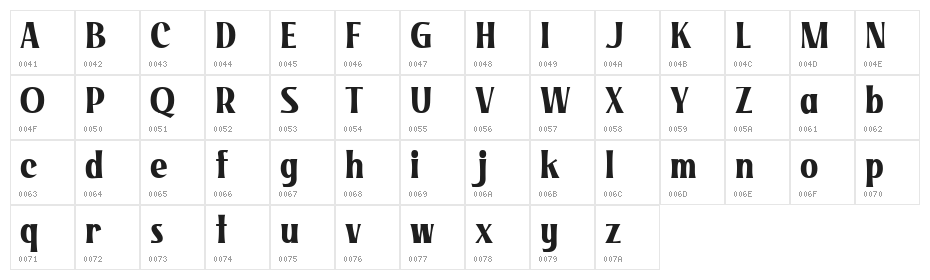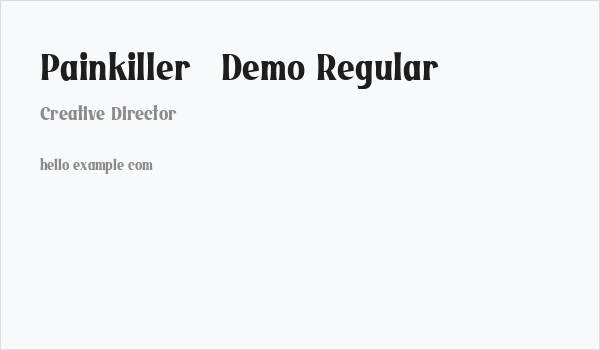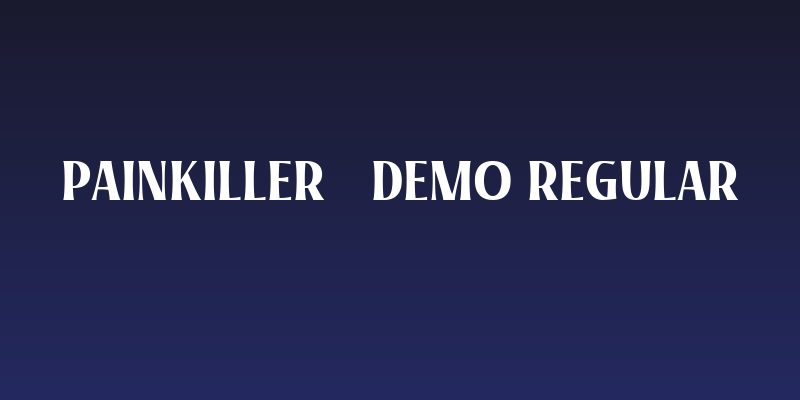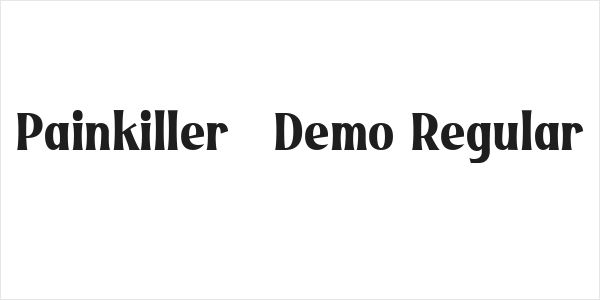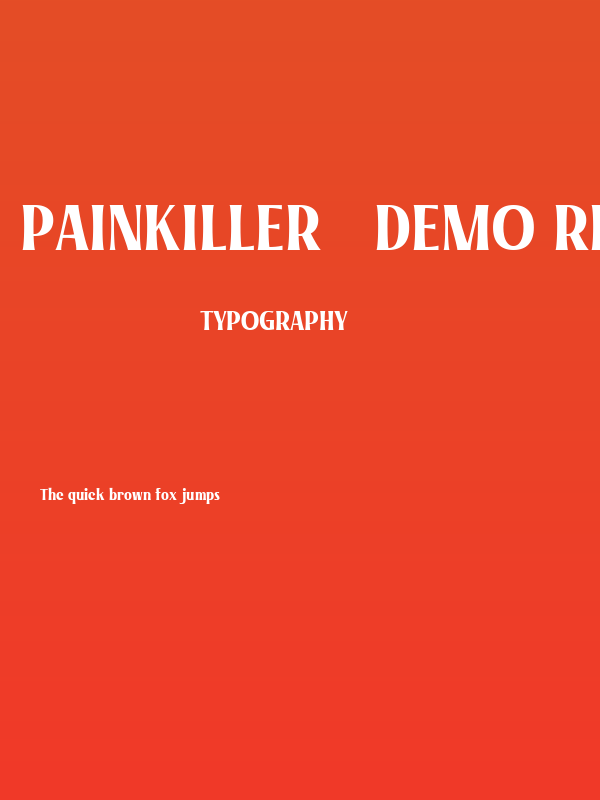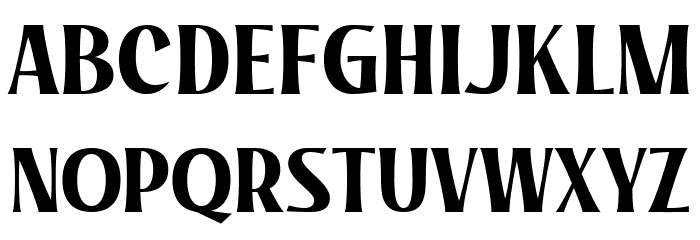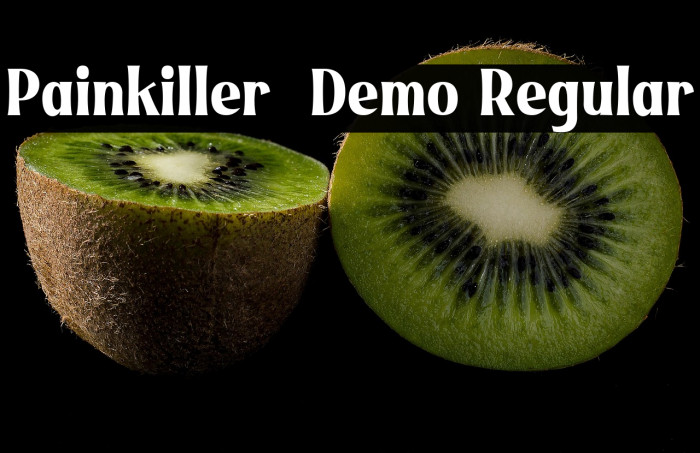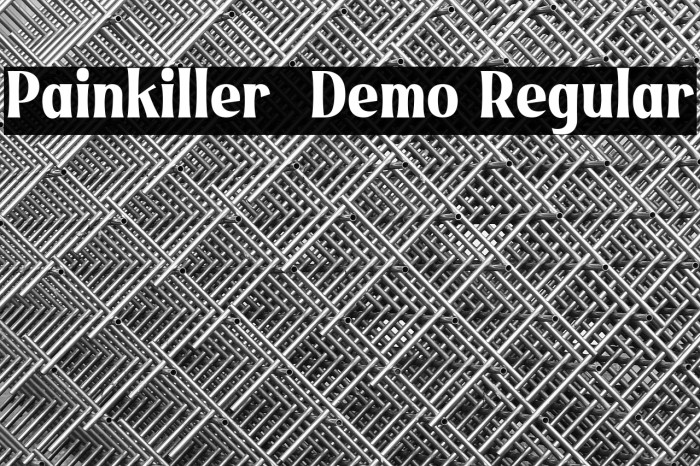
Painkiller - Demo Regular Font
Painkiller - Demo Regular Description
This font features a bold and dynamic style with a slightly condensed appearance. The characters have a unique flair, with varying stroke widths that add a sense of movement and energy. The uppercase letters are tall and commanding, while the lowercase letters maintain a consistent rhythm. The font's design includes subtle curves and sharp angles, creating a modern yet slightly vintage feel. It is well-suited for attention-grabbing headlines and impactful designs, offering a strong visual presence.
| Proposed Projects | Ideal for branding, posters, and headlines that require a strong visual impact. |